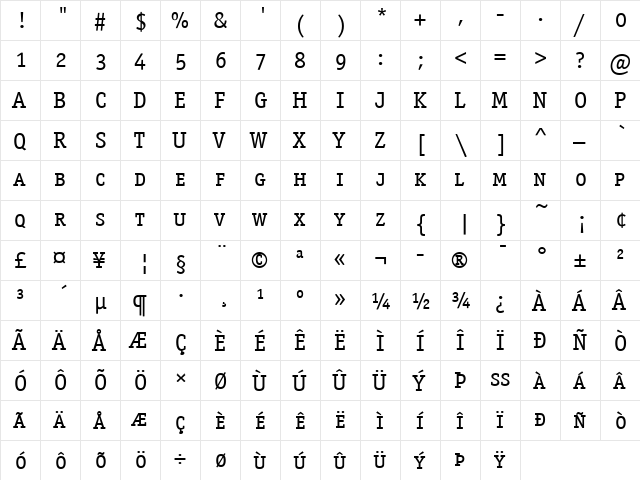
OfficinaSerITC Book Font Preview
OfficinaSerITC Book
OfficinaSerITC Book Font Details
| Style | Book |
| Foundry | \ International Typeface Corporation and by Erik Spiekermann, Ole Schaefer |
Design Context for OfficinaSerITC Typeface
OfficinaSerITC is a composed and adaptable typeface that performs quietly and consistently across a wide range of design contexts.